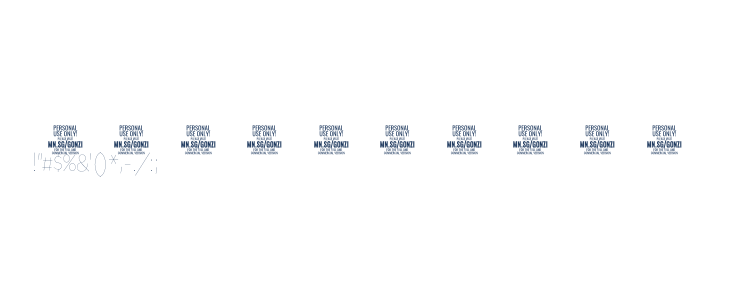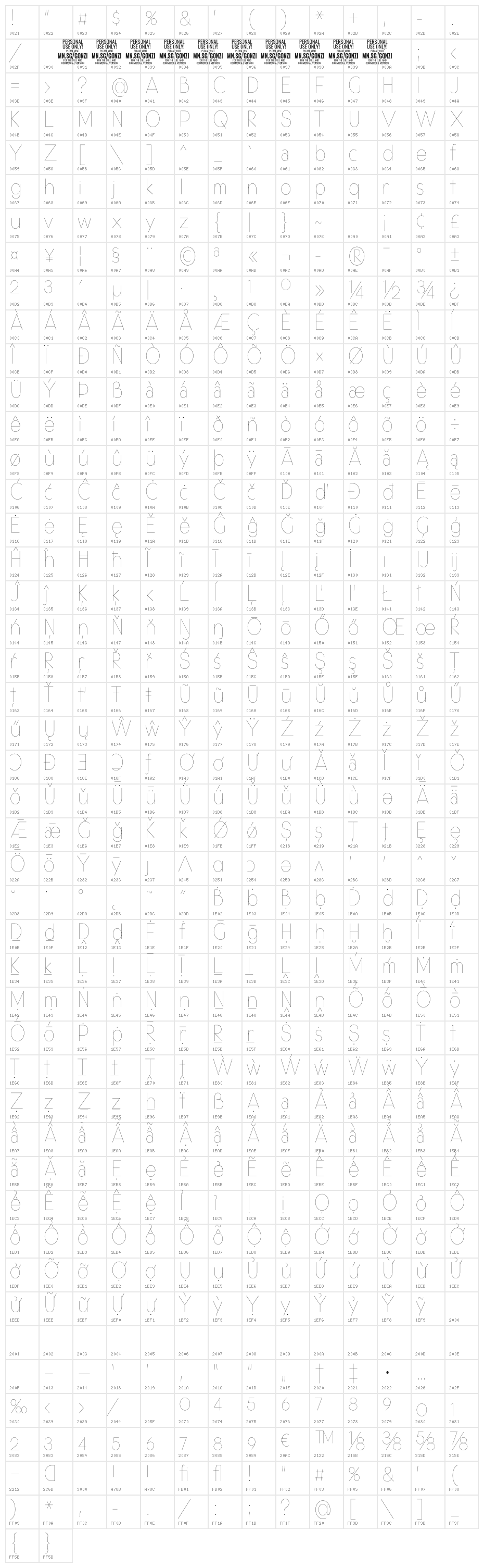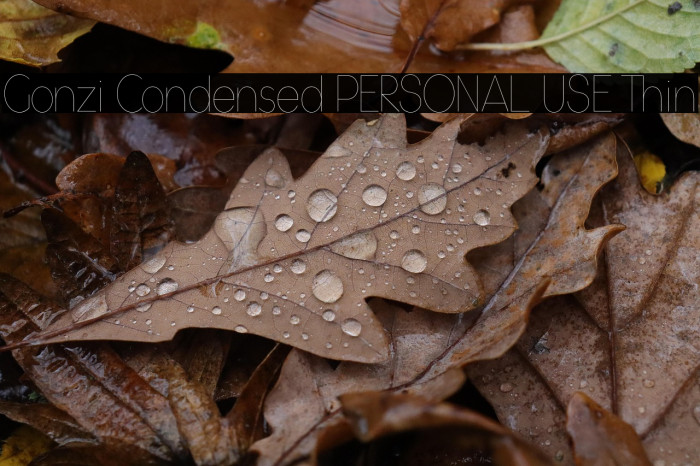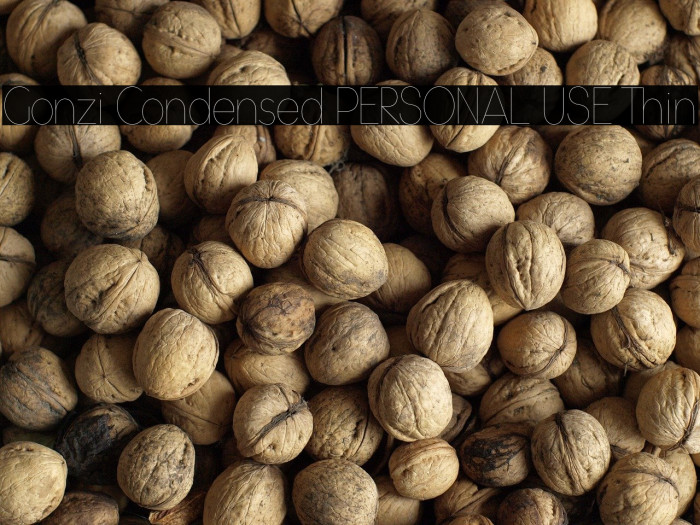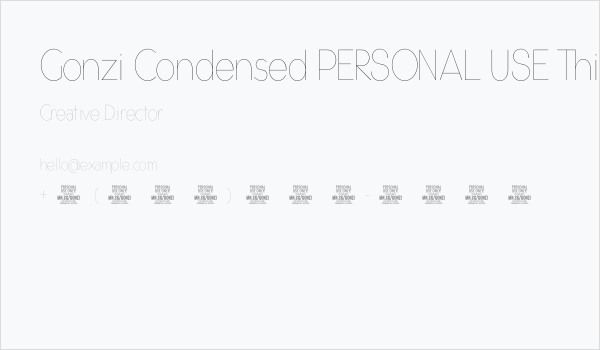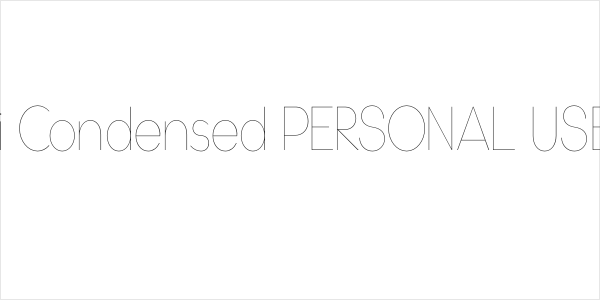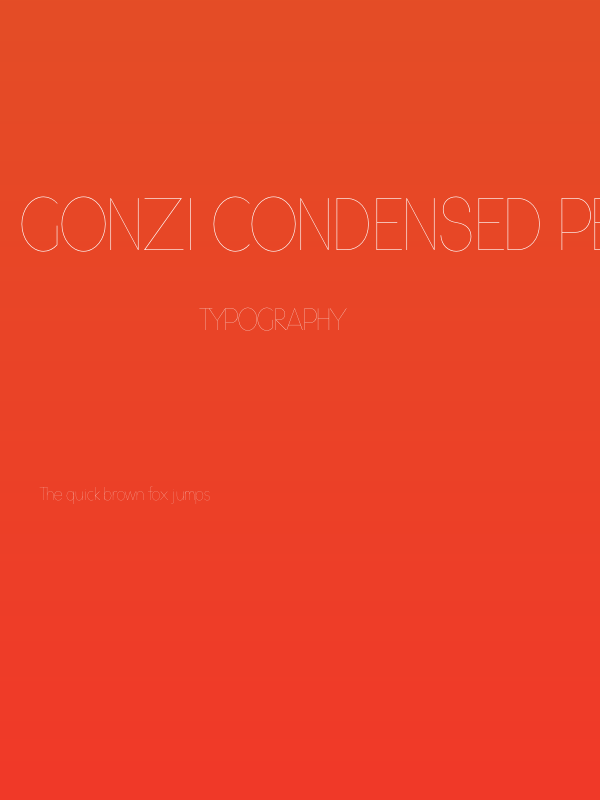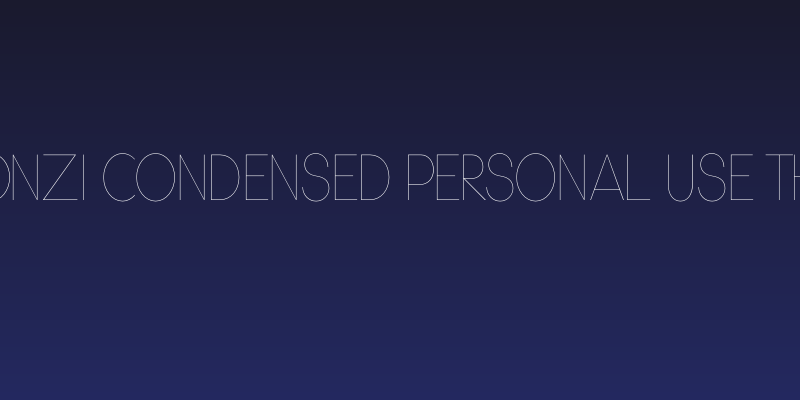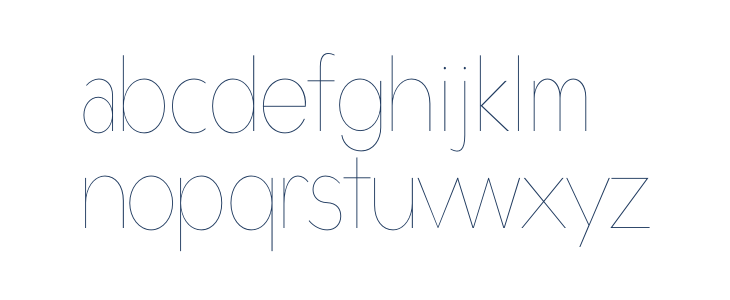
Gonzi Condensed PERSONAL USE Thin Font
Gonzi Condensed PERSONAL USE Thin Description
This font features a sleek and modern design with a thin, condensed structure. The characters are elegantly crafted with a minimalist approach, emphasizing clean lines and a streamlined appearance. The uppercase and lowercase letters maintain a consistent height, contributing to a harmonious and balanced look. The numerals and special characters are designed with the same thin strokes, ensuring uniformity across all elements. This font's simplicity and elegance make it suitable for a variety of design applications, offering a contemporary aesthetic that is both versatile and stylish.
| Proposed Projects | Ideal for modern branding, minimalist posters, elegant invitations, and contemporary web design. |